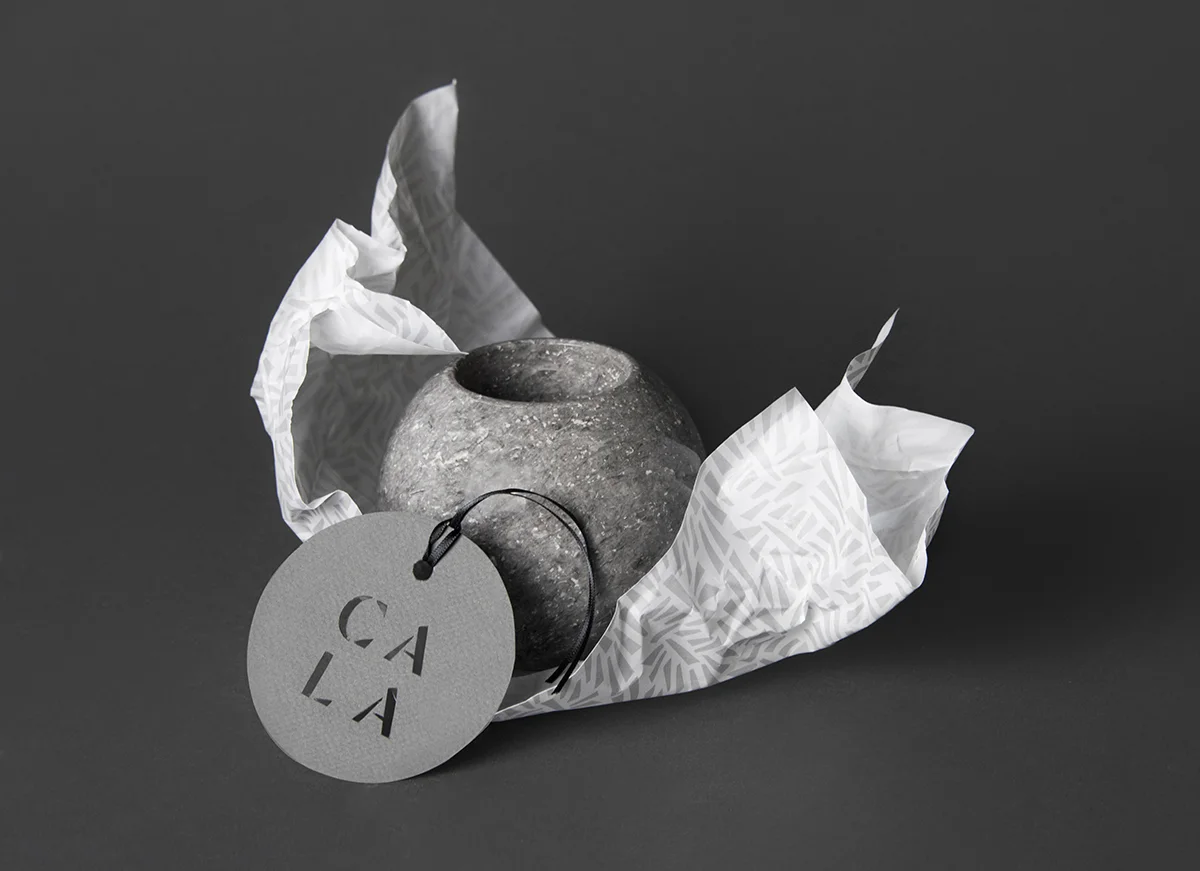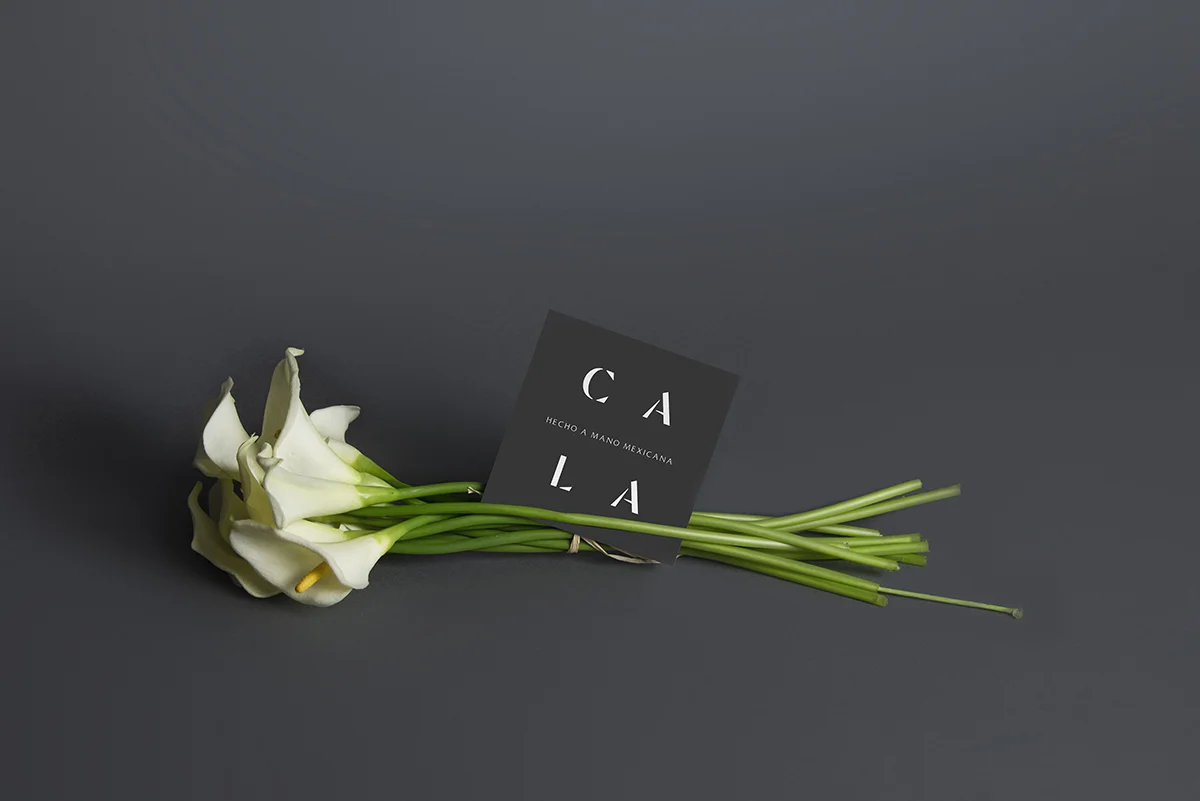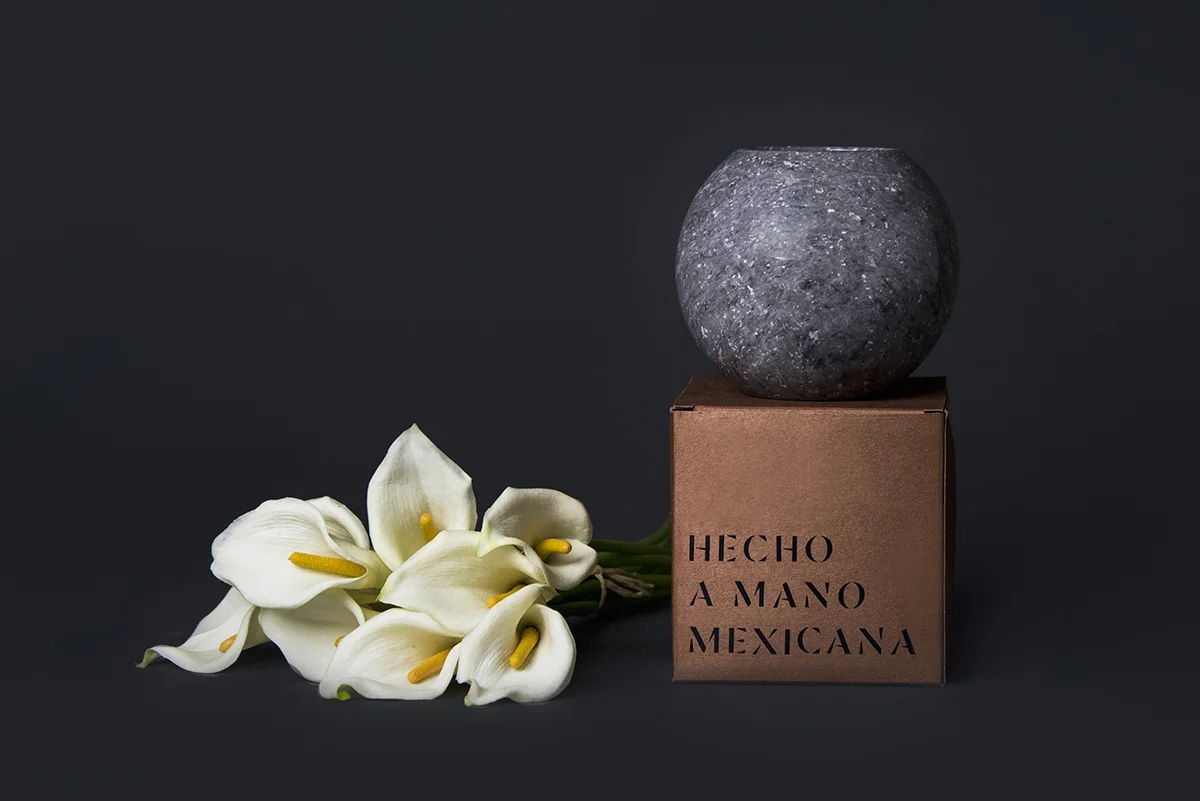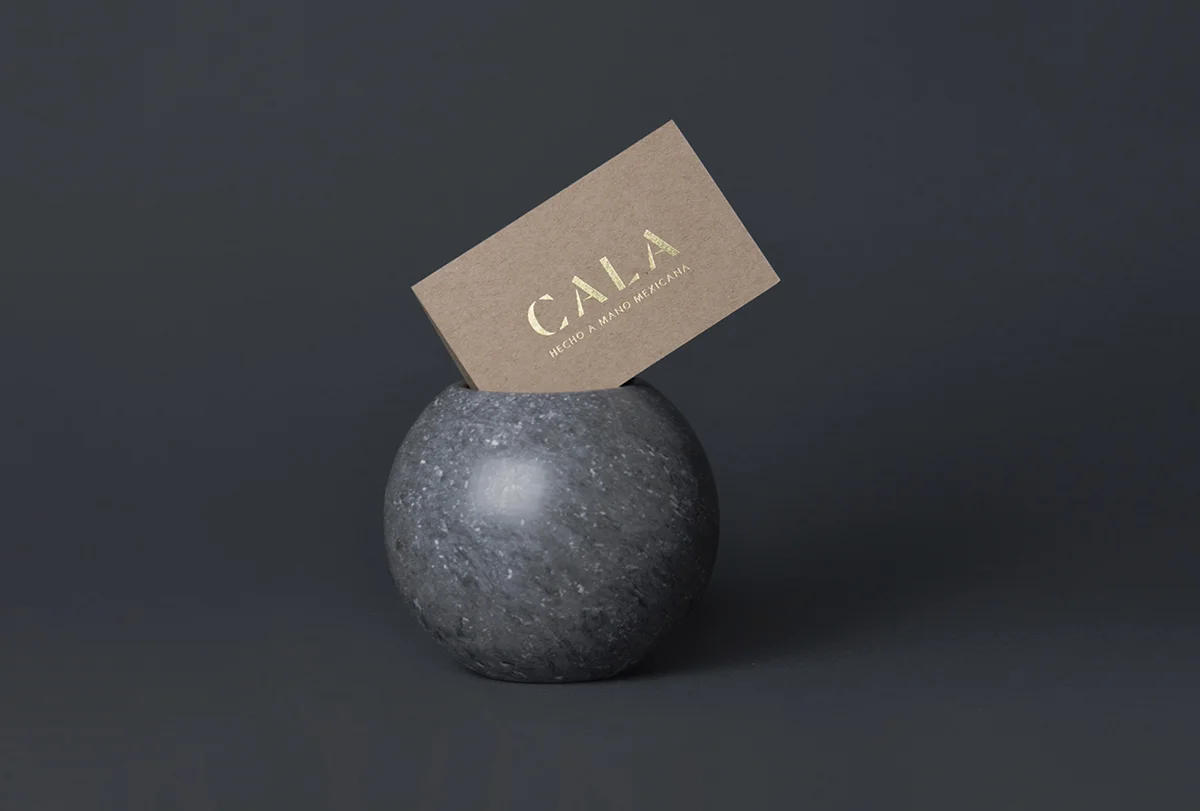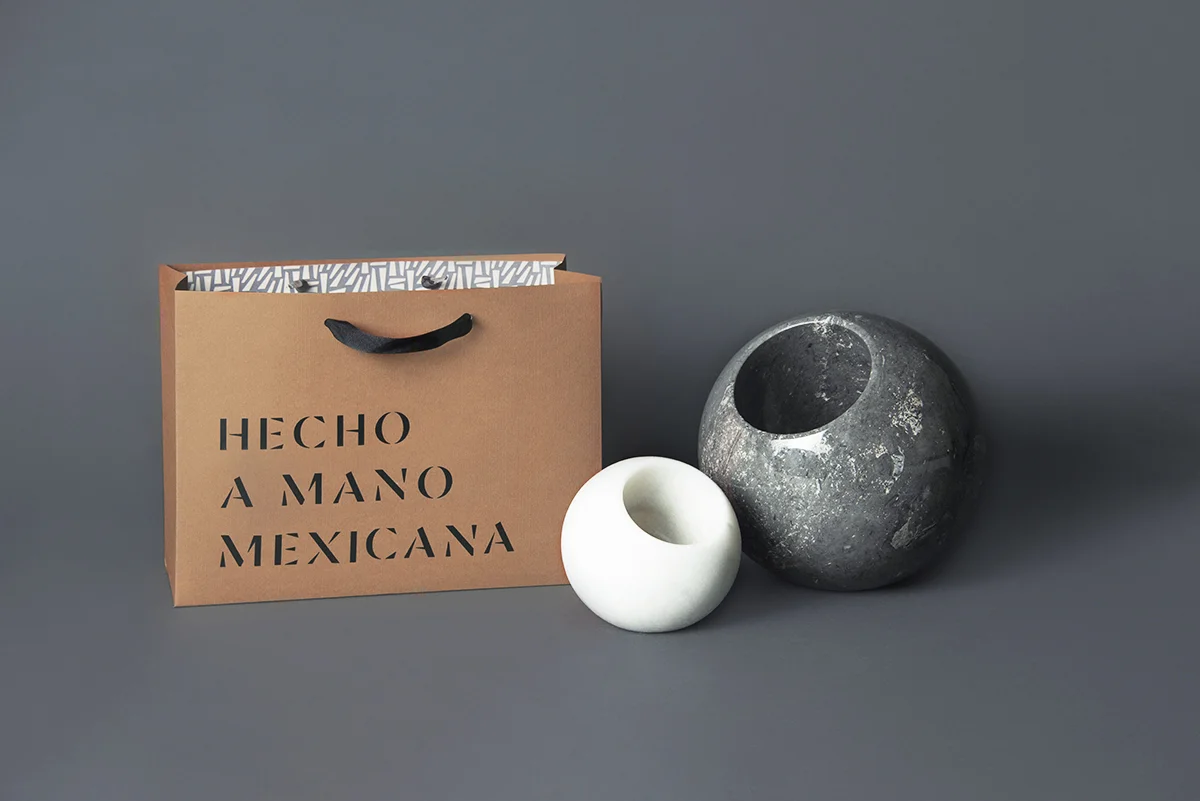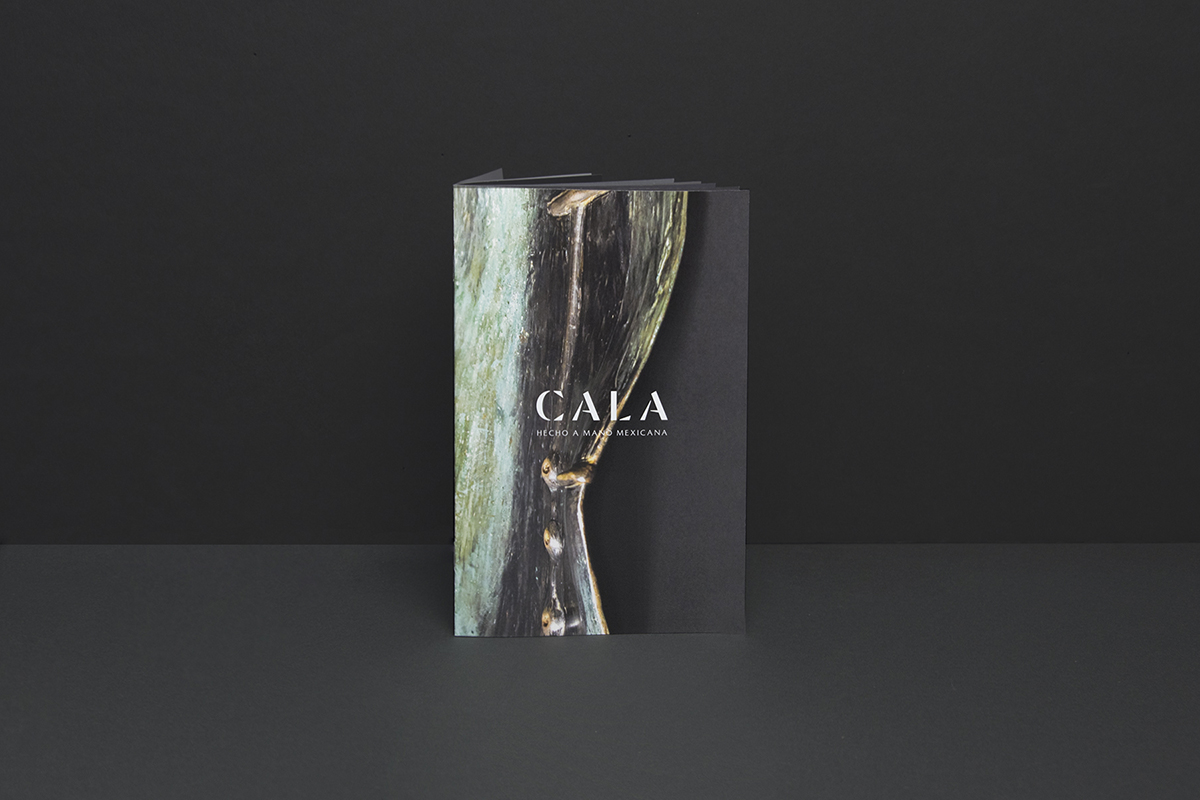
Cala is dedicated to creating interior design accessories in collaboration with Mexican artisans. The designers work closely with the artisans using the traditional crafts and tools to create slightly more contemporary and unique pieces.
The project involved Naming, Branding, Creative Copy, Custom Type, Art Direction and Photography.
NAMING
The name Cala was inspired by Diego Rivera's paintings, which featured Mexican artisans with calla lillies in the scene. "Kali" also means home in Nahuatl (the most spoken indigenous language in Mexico), which made the name feel even more familiar and adequate.
CREATIVE COPY
Cala’s Brand Phrase combines “made in Mexico” and “made by hand” to form “Hecho a mano mexicana,” which translates to “Crafted by Mexican hands.”
CUSTOM TYPE
A special part of this project involved creating a custom typeface for the brand, which we called Cala Display. This is used throughout the communication as display text in the lookbook, social media, signage, etc. The type is inspired by very raw strokes to evoke a natural, slightly native look with a modern touch. There is an obvious calligraphic trait to the design, which connects to the handmade origin behind the crafted pieces, but the high-contrast speaks to a more fashionable audience.
The stencil-like nature of the typeface enables it to be easily reproduced across store packaging materials such as boxes, as well as tags and signage. Certain segments from the typeface are extracted to create a pattern used across decorative materials, including gift wrap and shopping bags.
ART DIRECTION & PHOTOGRAPHY
Across the art direction and product shoots, we aimed to reference Mexican art by drawing inspiration from still-life paintings, incorporating materials such as wrinkled fabric, flowers and plants alongside the products in the compositions.